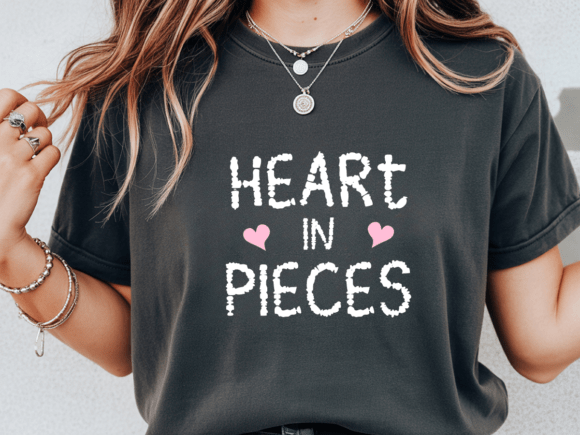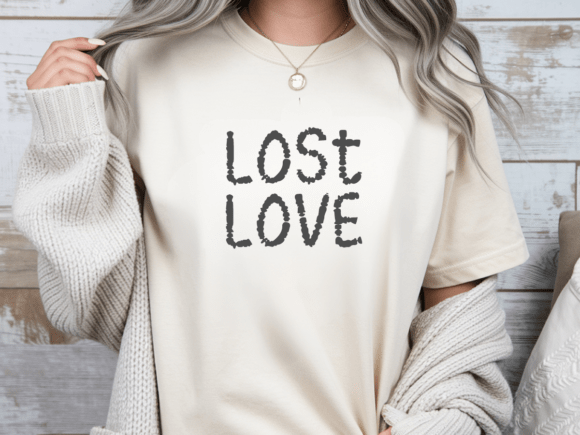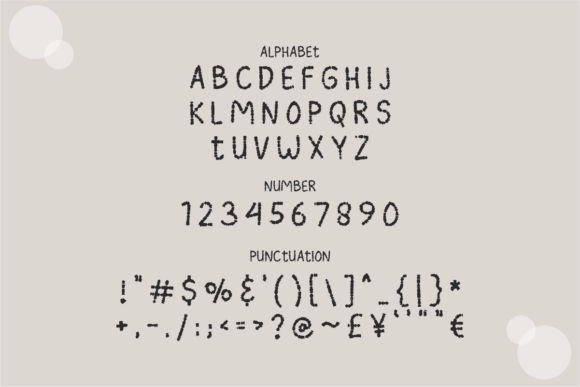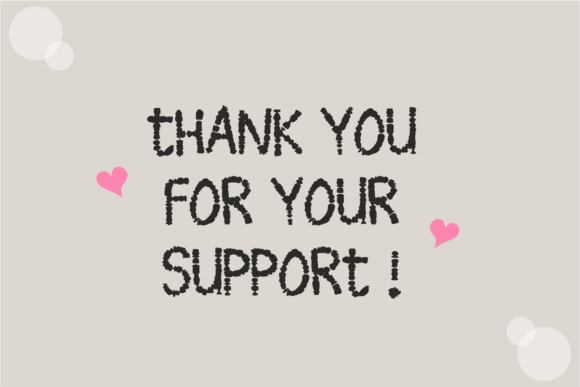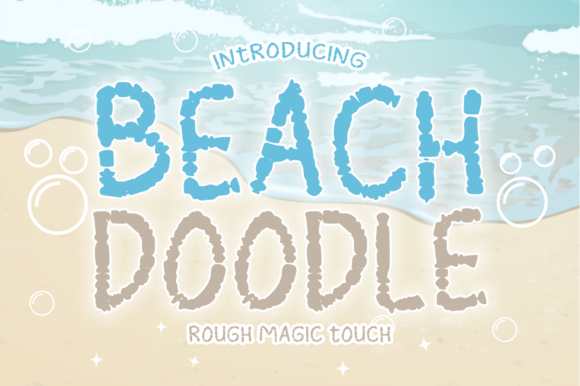
🌊 Capture the Coastal Vibe with Beach Doodle Font 🌊
Are you looking for a font that embodies the carefree spirit of the beach? Look no further than Beach Doodle, a unique, hand-drawn display font that brings a raw, beachy energy to your creative projects. With its distinctive “rough magic touch” texture, this font is perfect for designers and crafters who want to add a touch of coastal charm to their work.
What is Beach Doodle Font?
Beach Doodle is a hand-drawn display font that features a distressed, sketchy outline, giving it a truly handcrafted and authentic feel. Its organic texture and rough edges make it stand out from other fonts, making it perfect for projects that require a rustic, informal look. Whether you’re designing for a tropical brand or a summer DIY project, Beach Doodle ensures your message gets noticed.
Why Beach Doodle is a Summer Essential
Beach Doodle is a summer essential for any creator looking to add a touch of coastal charm to their work. Its bold and textured appearance makes it perfect for a variety of projects, from beach and coastal branding to summer party invitations and flyers. The font’s great legibility ensures that your message is clear and concise, making it perfect for designers and crafters who want to make a statement.
Perfect Use Cases for Beach Doodle Font
Beach Doodle is a versatile font that can be used for a variety of projects, including:
- Beach & Coastal Branding 🏝️: Add a touch of coastal charm to your brand’s logo, packaging, or website with Beach Doodle.
- Summer Party Invitations & Flyers 🍹: Create eye-catching invitations and flyers for your summer party or event with Beach Doodle.
- Custom T-shirts & Tank Tops 👕: Design custom apparel for your beach-themed business or event with Beach Doodle.
- Stickers, Labels & Scrapbooking ✨: Add a touch of coastal charm to your stickers, labels, and scrapbooking projects with Beach Doodle.
- Social Media Quotes & Travel Vlogs 📸: Use Beach Doodle to add a touch of personality to your social media quotes and travel vlogs.
- Home Decor & Wooden Signage 🪵: Create beautiful wooden signs and home decor items with Beach Doodle.
Key Features of Beach Doodle Font
Beach Doodle font has several key features that make it perfect for designers and crafters:
- Hand-drawn design: Beach Doodle is a hand-drawn font, giving it a unique and authentic feel.
- Distressed texture: The font’s distressed texture gives it a rough, organic look that’s perfect for beach and coastal-themed projects.
- Great legibility: Despite its distressed texture, Beach Doodle has great legibility, making it perfect for use in a variety of projects.
- Bold and textured appearance: Beach Doodle’s bold and textured appearance makes it perfect for projects that require a statement piece.
Beach Doodle font is a unique and versatile font that’s perfect for designers and crafters who want to add a touch of coastal charm to their work. With its hand-drawn design, distressed texture, and great legibility, Beach Doodle is perfect for a variety of projects, from beach and coastal branding to summer party invitations and flyers. So why not capture the coastal vibe with Beach Doodle font and take your creative projects to the next level? 🌊